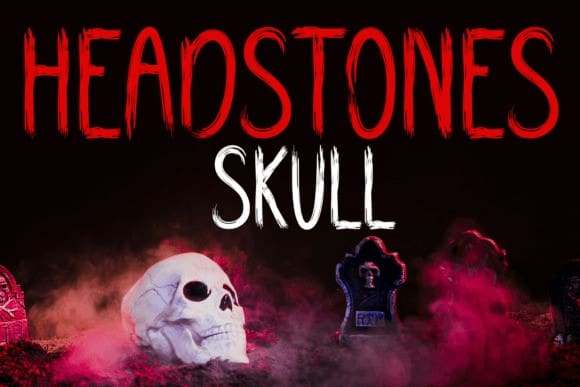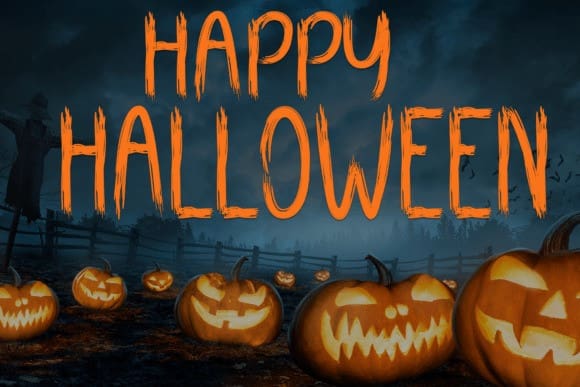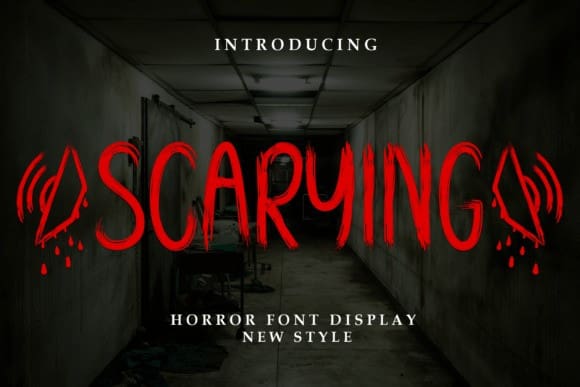
Scaryring Horror Font
Scaryring Horror Font.This is a unique and bold handwritten display font. Cute and fun, this font is ideal for writing wedding invitations, cards, or any other design that might need a fun touch!